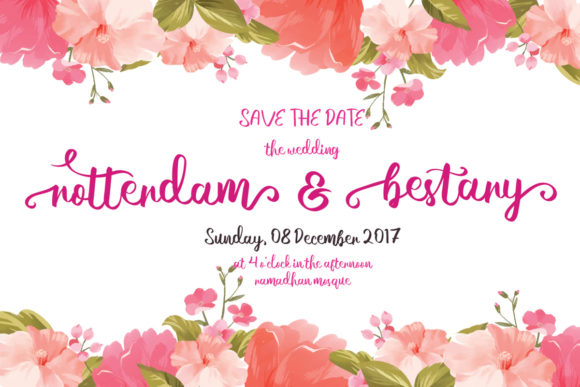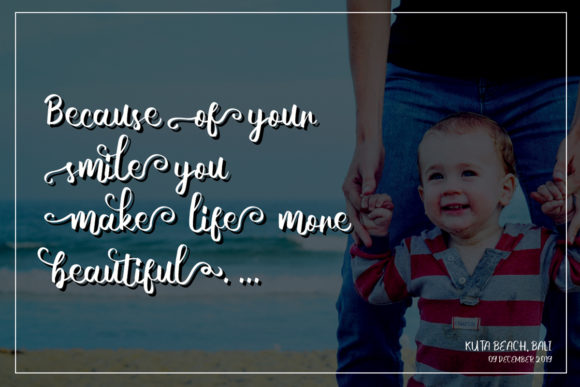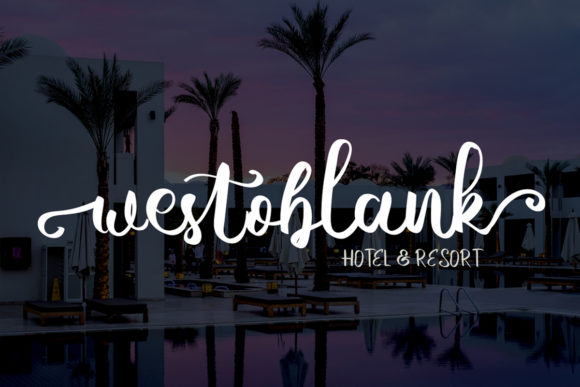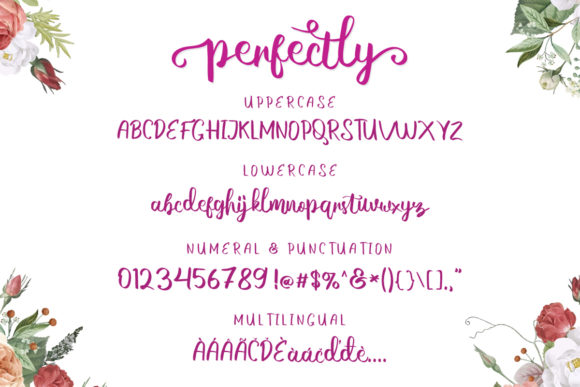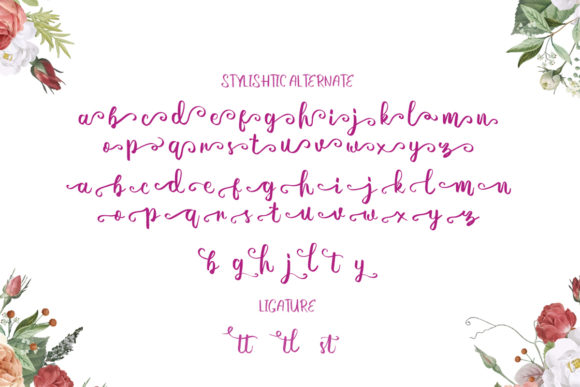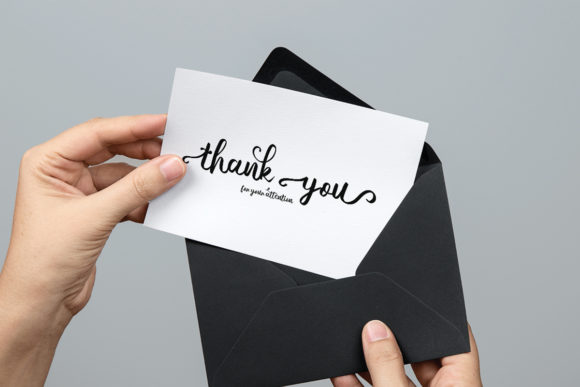
Perfectly Font
About Perfectly Font
Nobody’s perfect, but this stunning script delivers an overall stunning font experience. Perfectly will turn any design idea into a masterpiece.